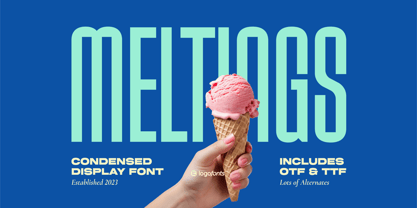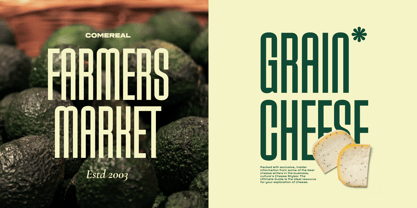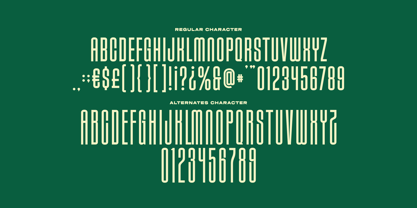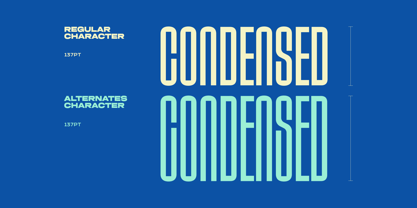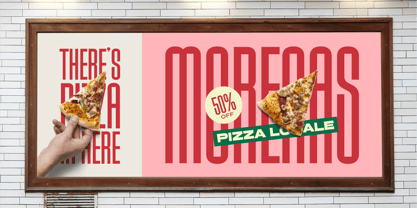
Meltings
by Logofonts
The Meltings Font Family was designed by Anna Safitri and published by Logofonts. Meltings contains 1 styles. More about this family
This is Meltings, this typeface combines sleek, contemporary design with a compact structure, making it perfect for high-impact, space-efficient applications. The clean, geometric lines of the sans serif design are complemented by condensed letterforms, creating a bold and streamlined look that maximizes readability even in tighter spaces. Ideal for headlines, branding, posters, and digital interfaces, this typeface exudes modernity while maintaining a sense of clarity and sophistication. Its versatility ensures it shines in both print and screen designs, offering a timeless yet edgy aesthetic for any project.
Designers: Anna Safitri
Foundry: Logofonts